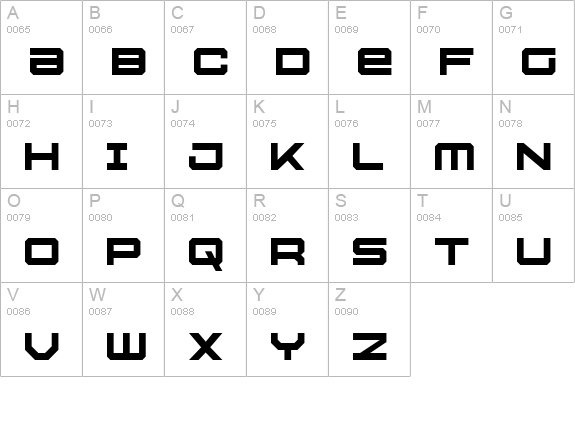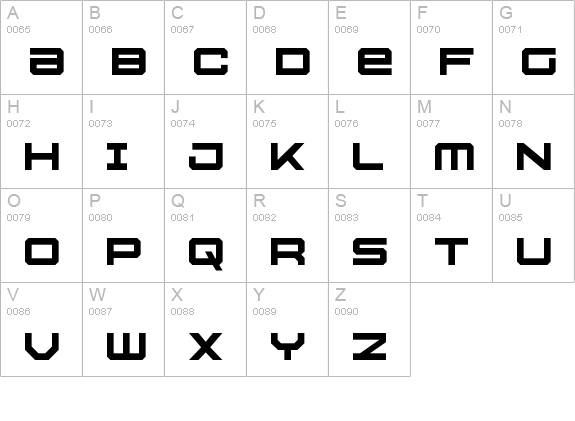
The U.S.S. Dallas font is a sleek and modern typeface that exudes sophistication and elegance. With its clean lines and stylish appearance, this font is perfect for a wide range of design projects, from branding to editorial layouts. Its versatile nature makes it suitable for both headers and body text, ensuring a cohesive and polished look throughout your designs. What makes the U.S.S. Dallas font even more appealing is that it is available for free download at FontsMarket.com. This means that you can easily access this high-quality font without any cost, making it a valuable addition to your font library. Whether you are a professional designer or a casual enthusiast, the U.S.S. Dallas font offers a premium look without the premium price tag. Experience the sophistication and versatility of the U.S.S. Dallas font today by downloading it for free at FontsMarket.com. Elevate your designs with this stunning typeface and create visually stunning projects that stand out from the rest.